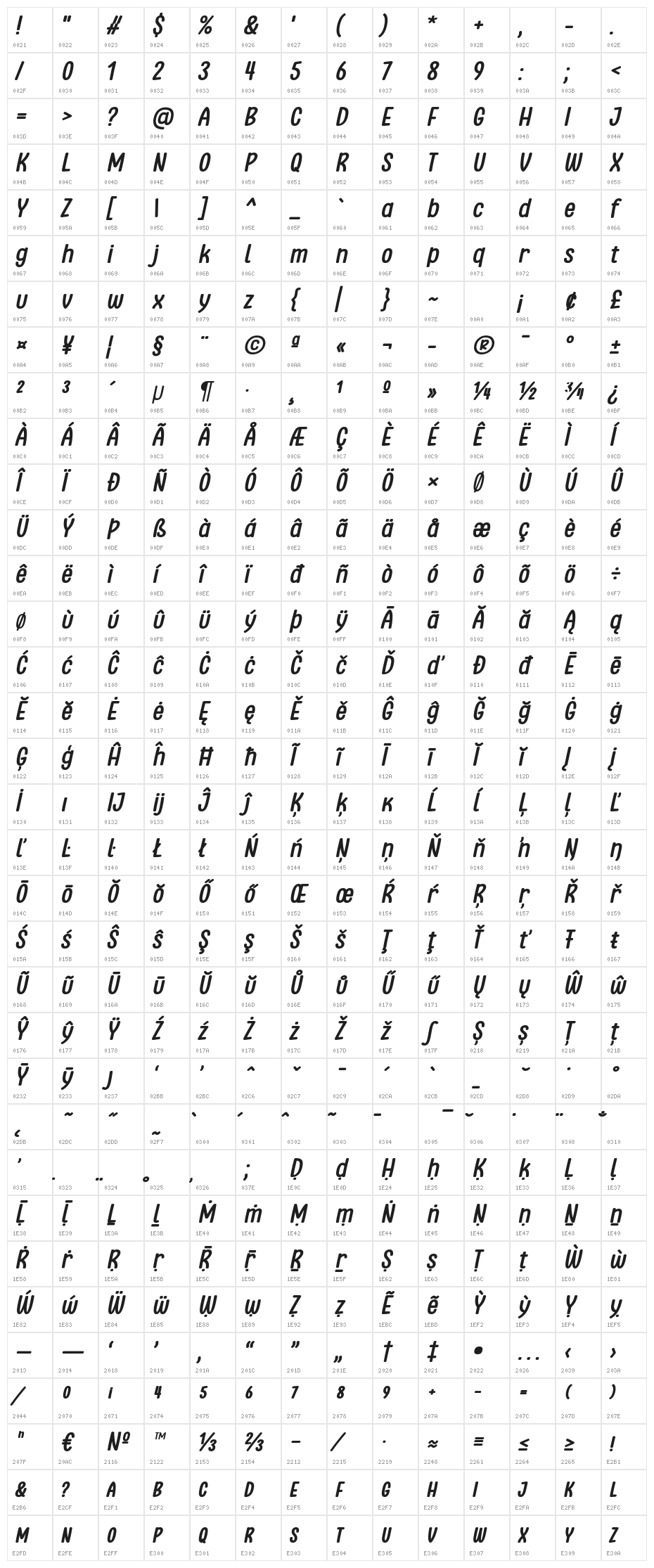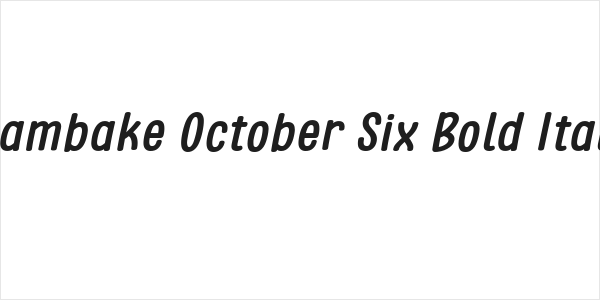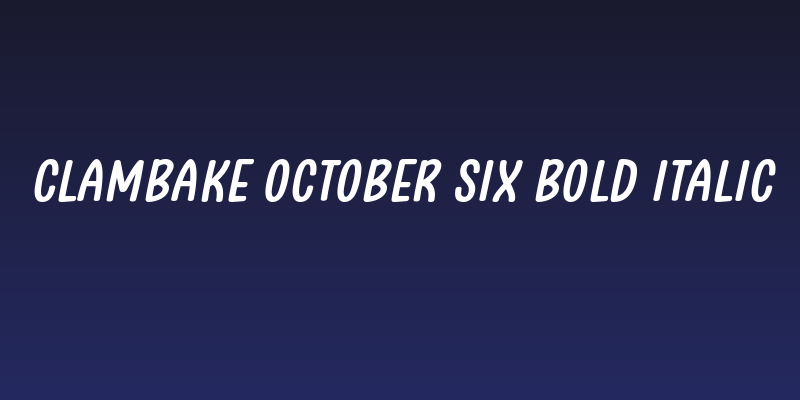
Clambake October Six Bold Italic Font
Clambake October Six Bold Italic Description
This font features a bold and italicized style with a playful and dynamic appearance. The letters are slightly slanted, giving a sense of movement and energy. The strokes are thick and consistent, providing a strong visual impact. The characters are well-rounded with smooth curves, which adds to the overall friendly and approachable feel. The font maintains a uniform weight throughout, ensuring readability while still conveying a sense of fun. The spacing between characters is balanced, allowing for clear legibility even in smaller sizes. This font is versatile, suitable for various creative projects that require a bold and lively touch.
| Overall Style | Playful and Dynamic |
| Use Case | Headlines, Posters, Branding |
| Proposed Projects | Ideal for posters, branding, headlines, and any design needing a lively and bold touch. |